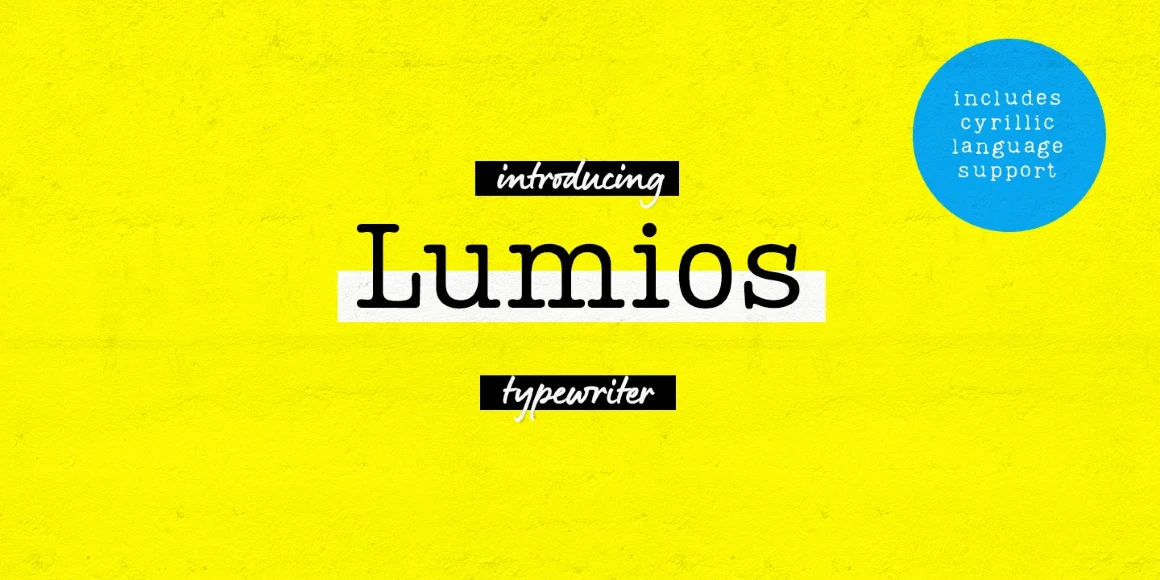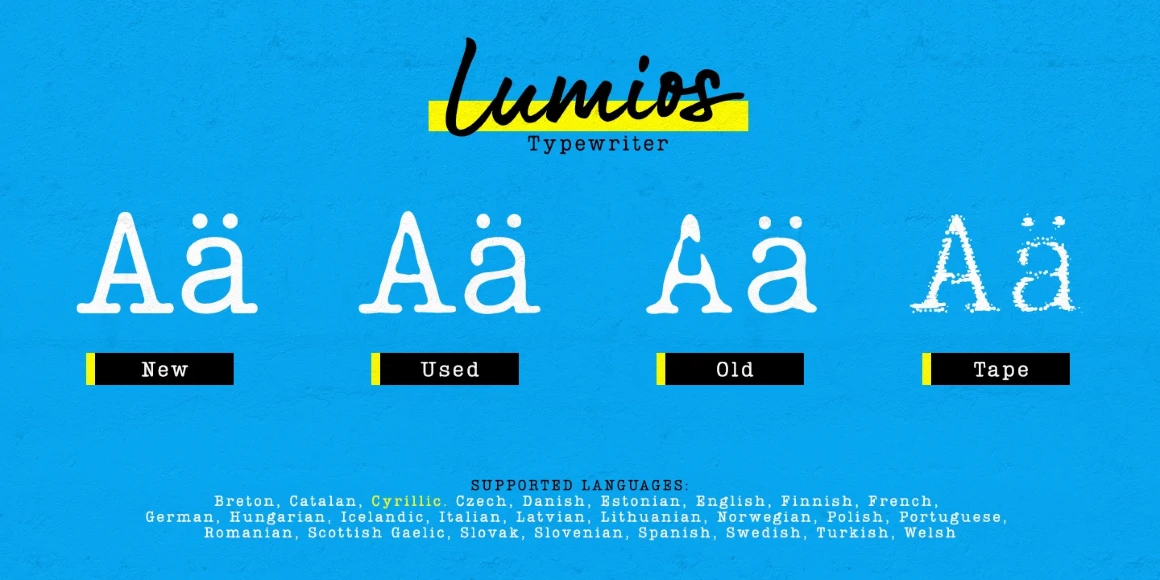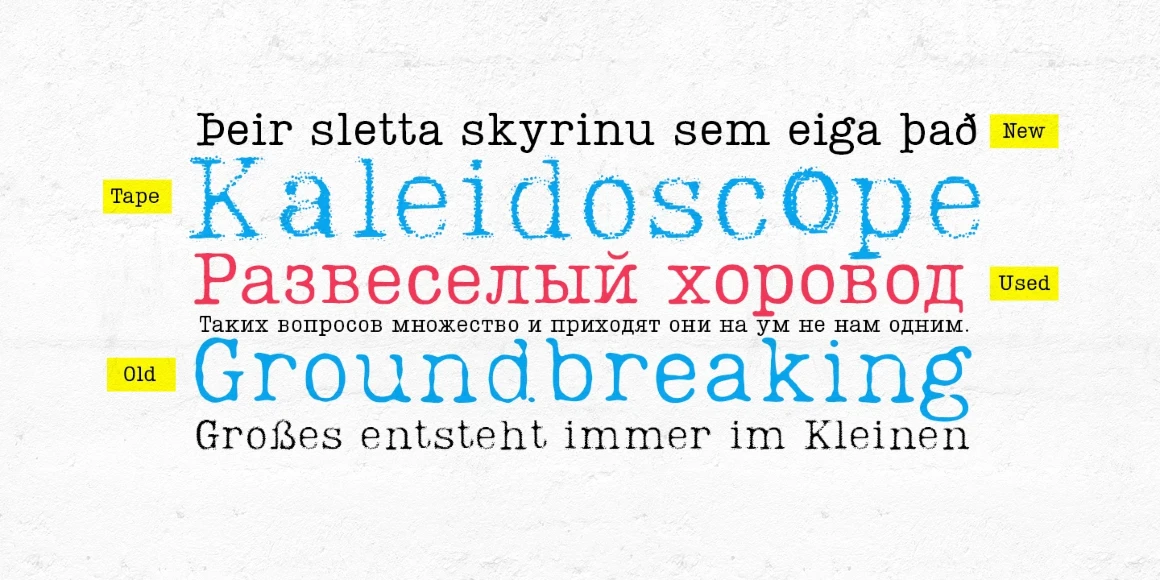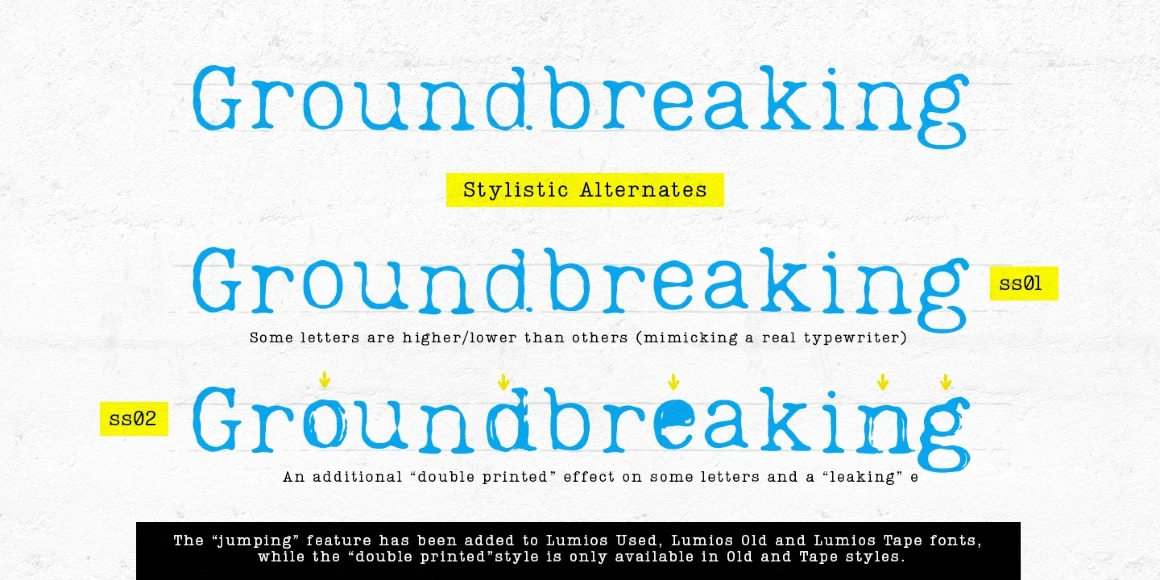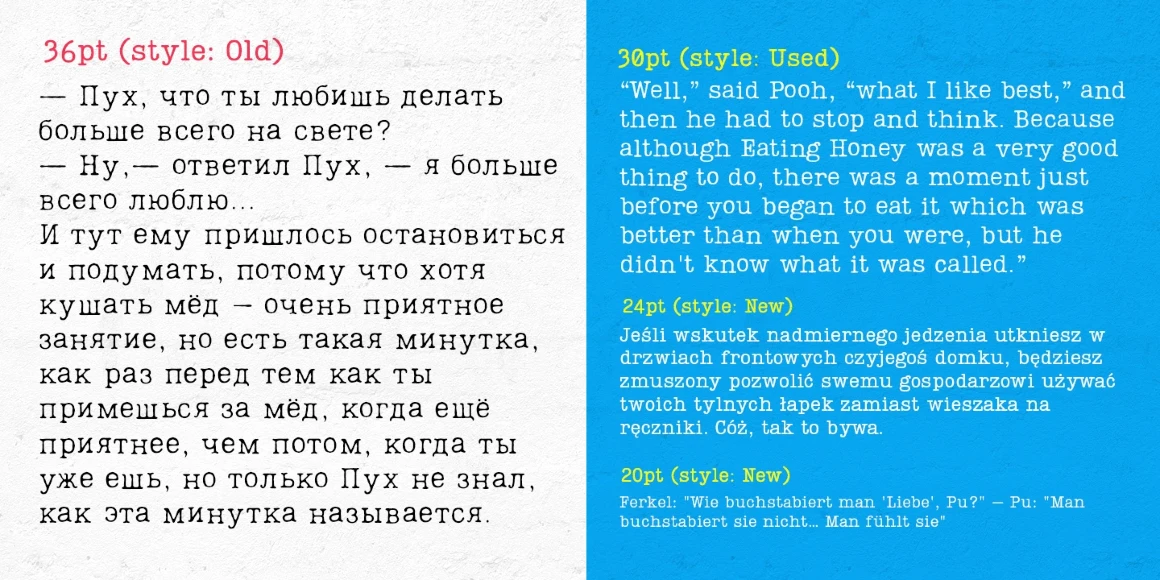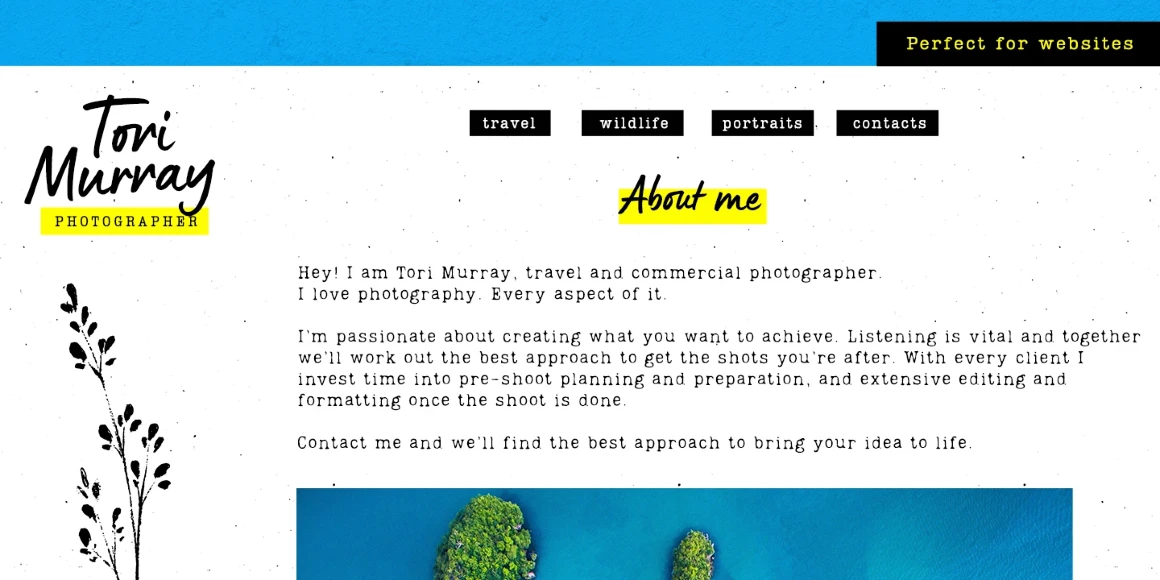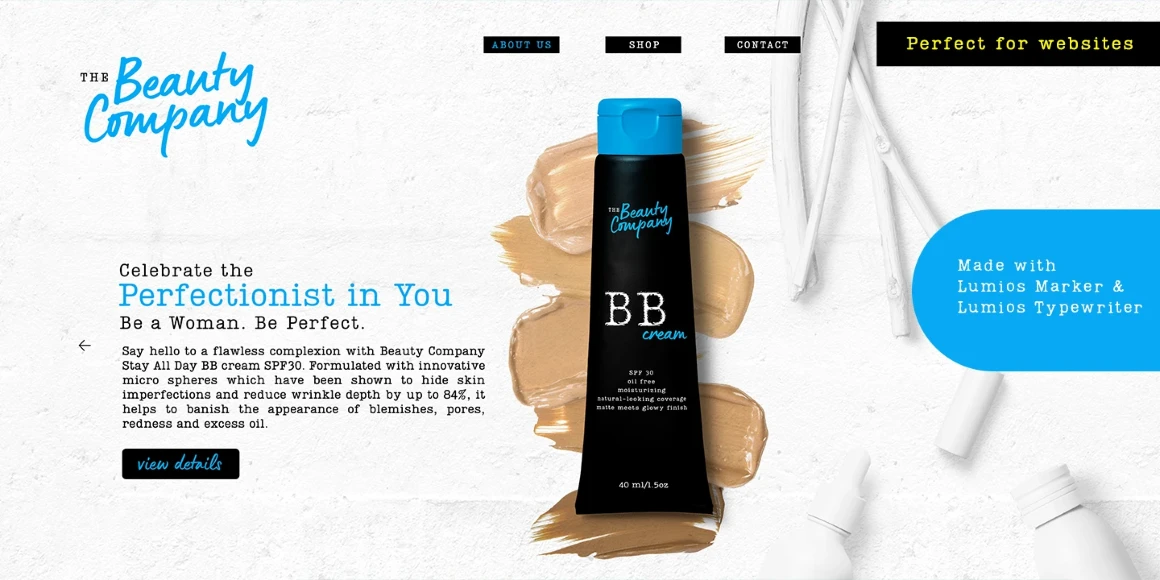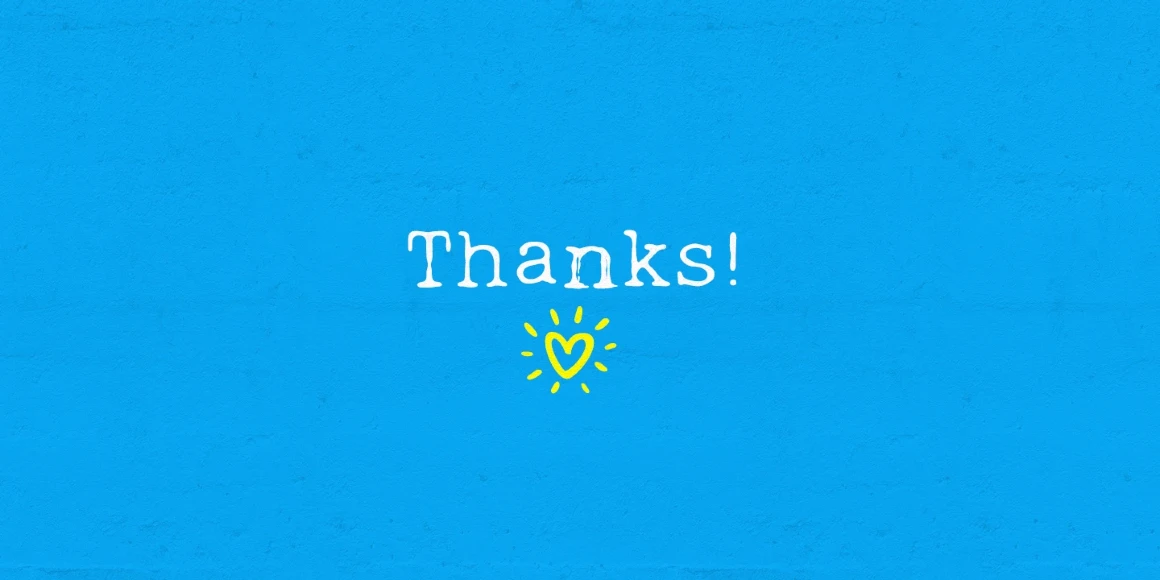
Lumios Typewriter
From My Creative Land
Lumios Typewriter is a distinctive slab serif font in the Lumios family. It was inspired by various details found in old typewritten letters. There are 4 unique styles: New, Used, Old, and texturized Tape. Different effects and stylistic alternates further enhance the achievable realistic look with these multilingual (Latin and basic Cyrillic) fonts. Lumios Marker is a great choice for websites, packaging, editorial, branding, posters, greeting cards, and billboards.
Designed by Elena Genova